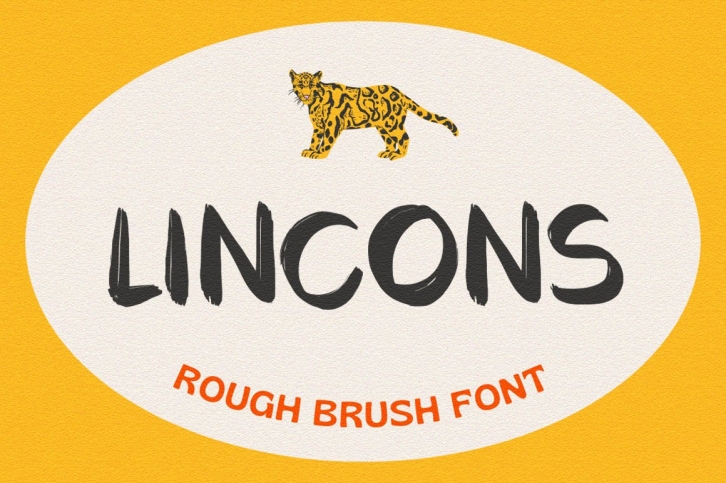
Lincons is a gorgeous font that was realeased on June 14, 2022. The font can be used in many style contexts and design environments. Perfect for invitations, magazines, websites, logos, and more! It was designed by Vultype Co and the file size is 1.53 MB. Thanks for checking out this font!